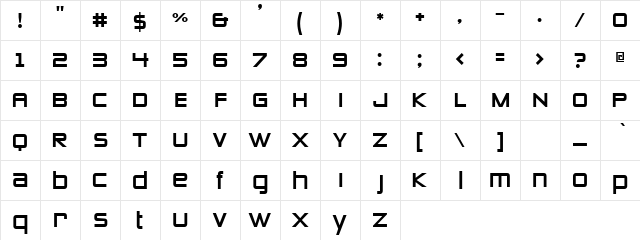
Campzydart Regular
Designer: JupiterImages
Design Context for Campzydart
Campzydart is a composed and adaptable typeface that performs quietly and consistently across a wide range of design contexts.